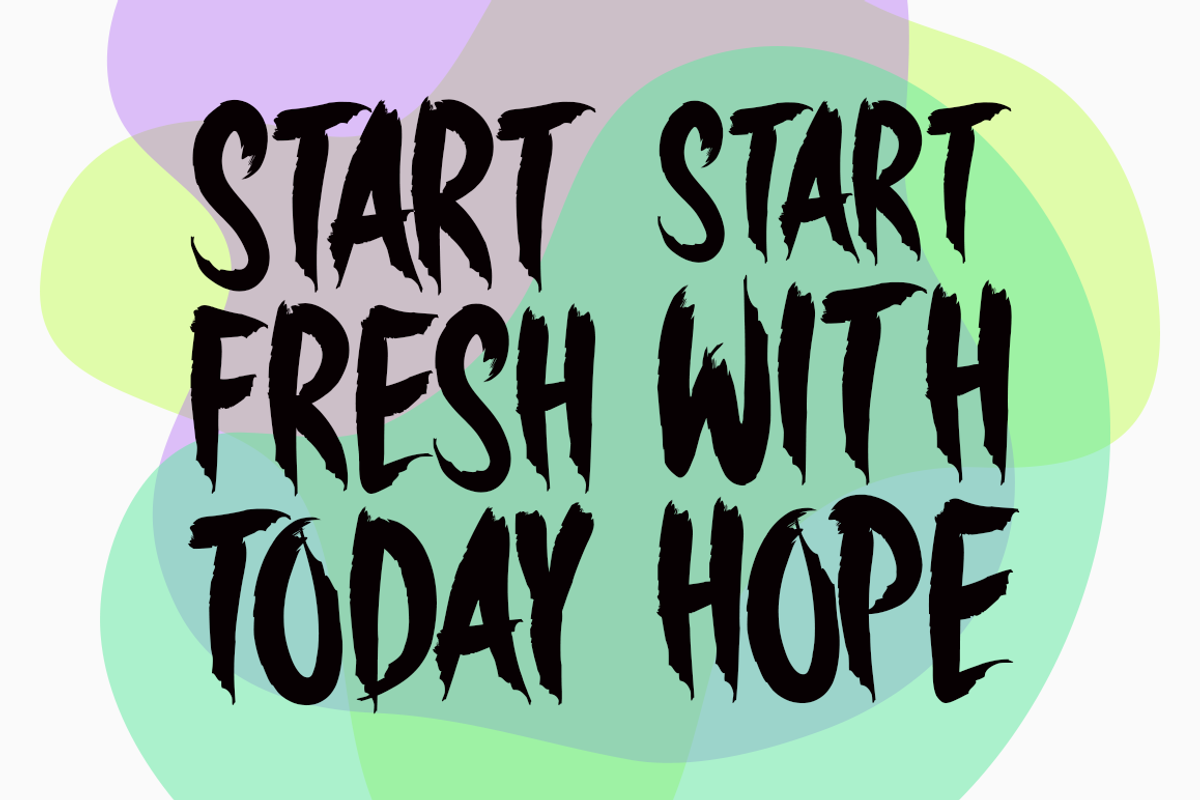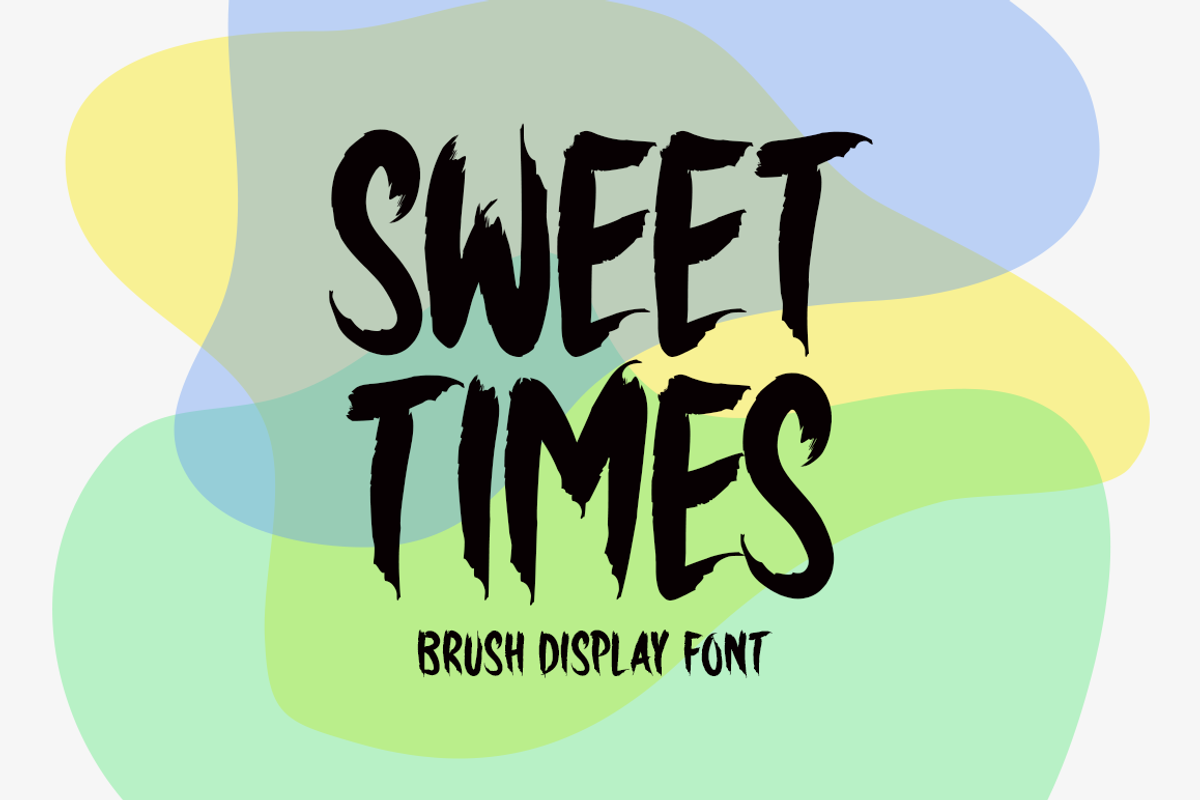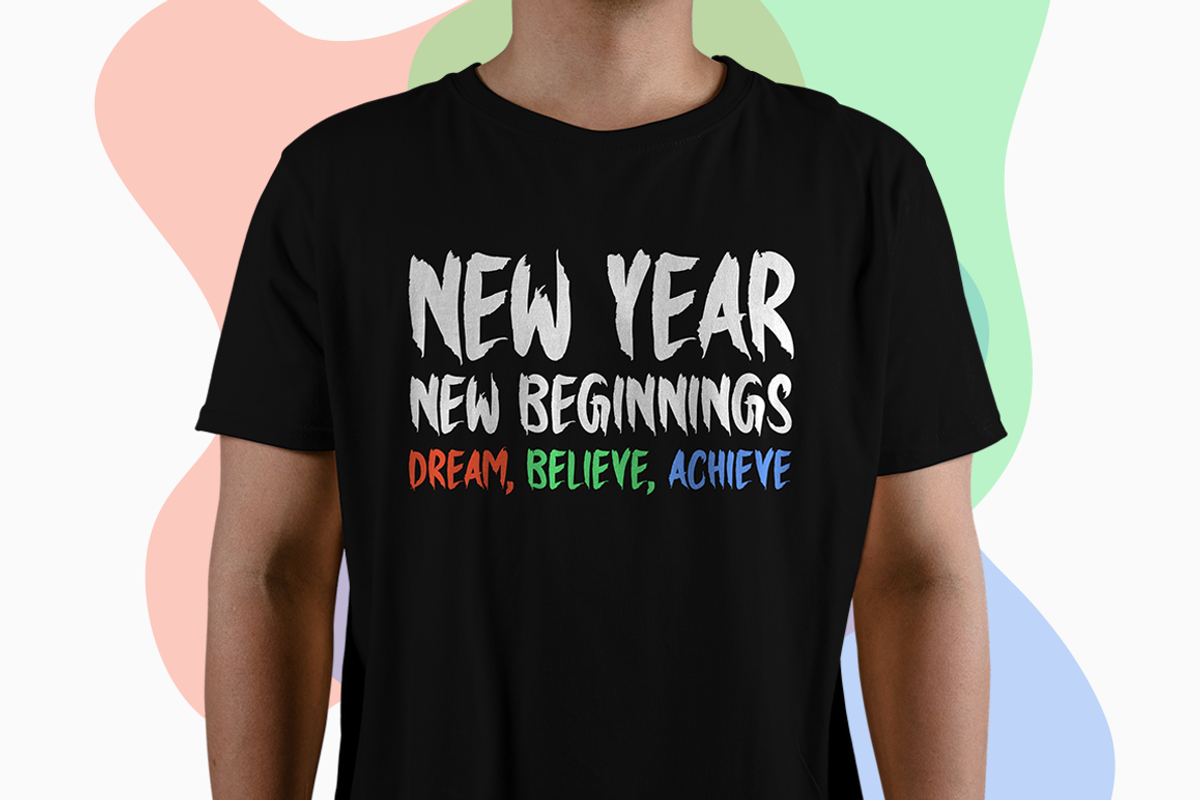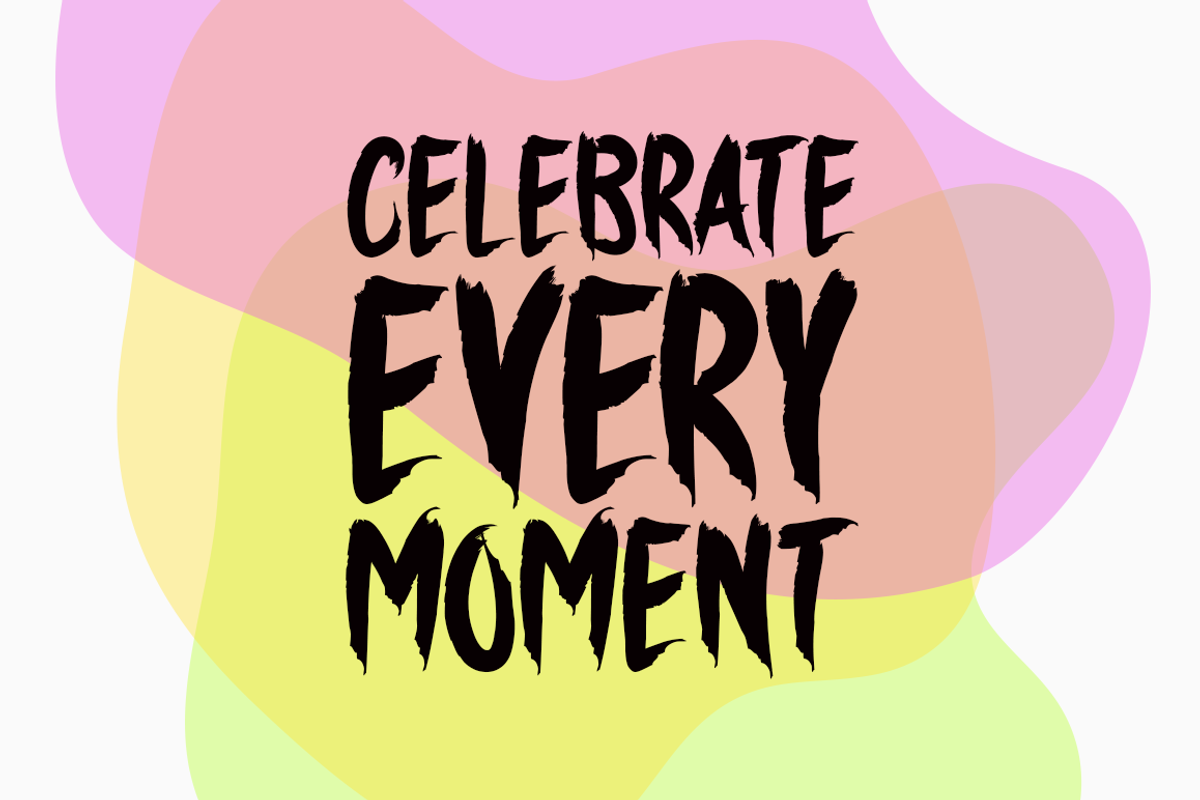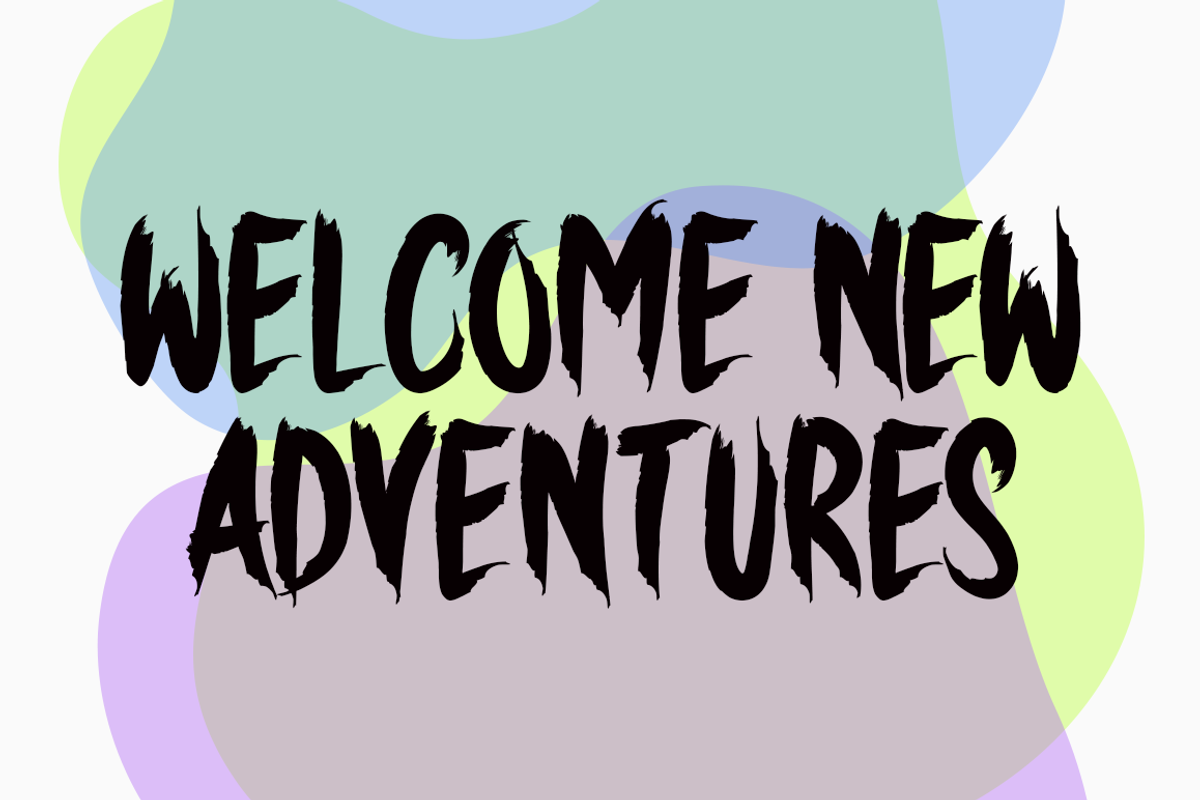
Sweet Times Typeface
Introducing Sweet Times!
Sweet Times is an eye-catching, brush-style font that brings an irresistible charm to any design. Its lively, flowing strokes create a fresh and artistic vibe that can elevate everything from logos to print materials. Perfect for a variety of creative projects such as stationery, t-shirts, paper products, and music covers, Sweet Times is versatile enough for both print and digital designs. It makes a bold statement in website headers, photo frames, flyers, posters, and even image sliders, giving your work a modern yet playful aesthetic that’s sure to stand out.
Includes a range of multilingual support